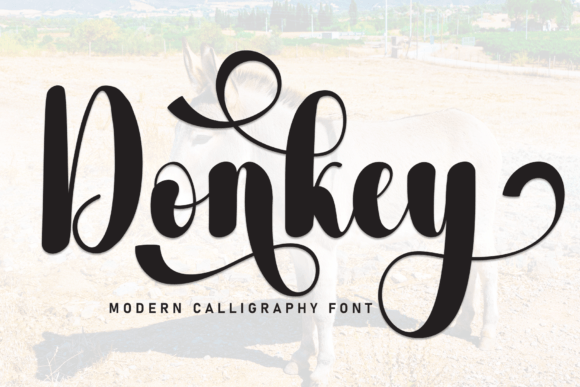
Introducing Donkey Font, a delightful handwritten script font that exudes warmth and charm. Its friendly, casual nature makes it the perfect choice for adding a personal touch to your creative projects.
With Donkey Font, you can effortlessly capture the beauty of handwritten notes, wedding invitations, heartfelt cards, and other designs that yearn for a touch of elegance and authenticity. Its graceful curves and playful characters dance across the page, evoking a sense of joy and happiness.
Unlike other fonts that feel rigid and impersonal, Donkey Font embraces the organic flow and imperfections of human handwriting. Each letter is a unique expression of creativity, adding a touch of individuality to your designs.
Whether you're a seasoned designer or just starting, harnessing the power of Donkey Font is a breeze. Simply download the font and let your imagination run wild. Witness the transformation as your digital creations are infused with a touch of whimsy and heartfelt charm.
With Donkey Font, the possibilities are endless. Create stunning logos that resonate with your brand's personality, craft social media posts that capture attention, design eye-catching marketing materials that entice customers, or simply add a touch of heartfelt elegance to your personal projects.
Join the growing community of creatives who have embraced the magic of Donkey Font. Experience the joy of creating designs that speak to the heart, evoking emotions and leaving a lasting impression. Embrace the power of Donkey Font and embark on a creative journey filled with joy, charm, and endless possibilities.